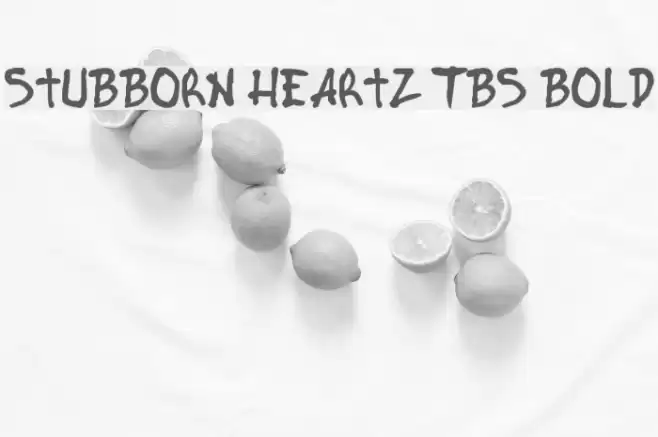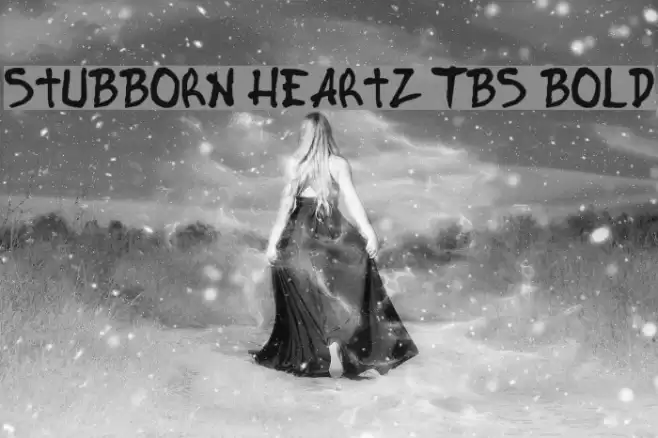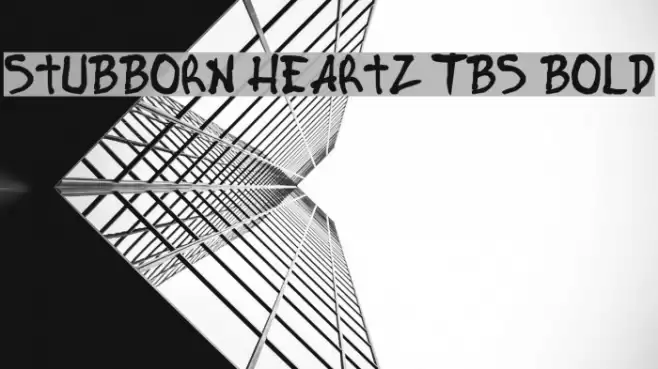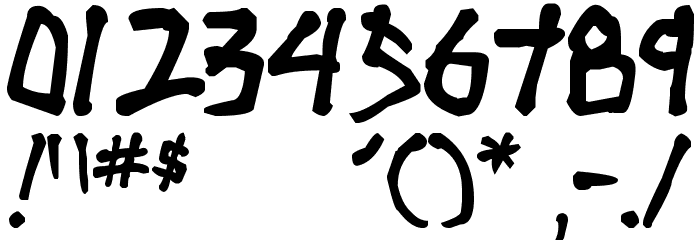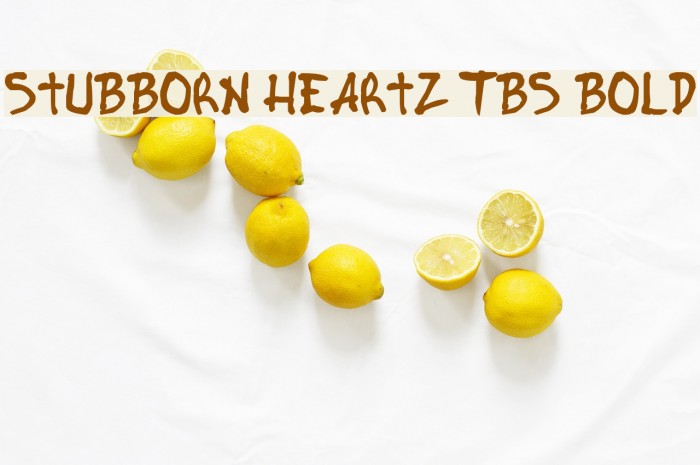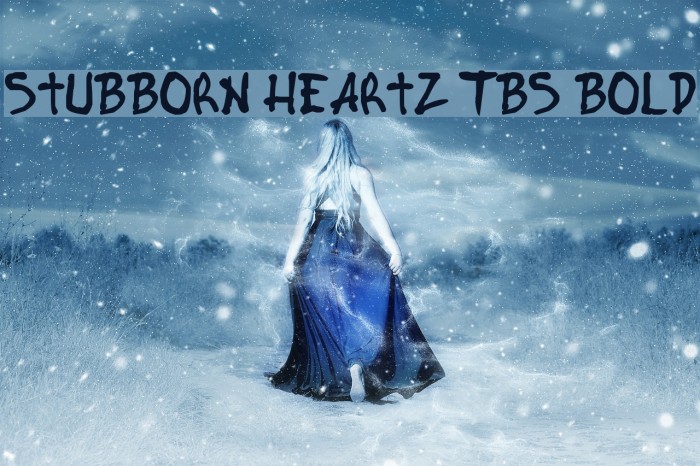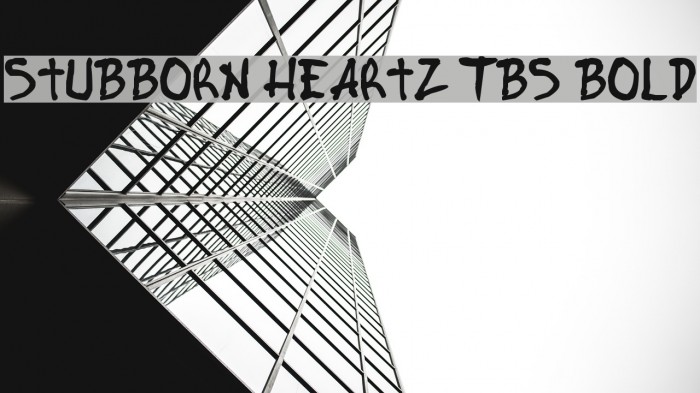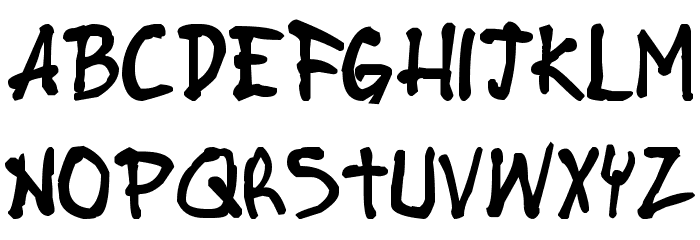
Stubborn Heartz TBS Bold Font
Stubborn Heartz TBS Bold Description
This bold and expressive font features a handwritten style with a playful and energetic appearance. The characters are thick and slightly irregular, giving a casual and informal feel. The uppercase letters are bold and prominent, while the lowercase letters maintain the same lively character. Numbers and special characters are consistent with the overall style, adding to its versatility. The strokes are uneven, adding a dynamic and spontaneous touch, making it ideal for projects that require a personal and creative flair.
A bold, handwritten font with an energetic and playful style from Uncategorized fonts.